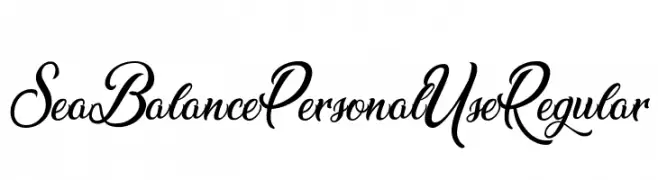
An elegant script font with intricate, flowing letterforms and classic calligraphic style.
A bold, decorative script font with elegant curves and medium contrast.
A dynamic handwritten font with fluid, cursive letterforms and varied stroke thickness.
A bold, cursive script font with elegant, flowing characters.
A flowing, cursive font with elegant loops and swashes, perfect for artistic projects.